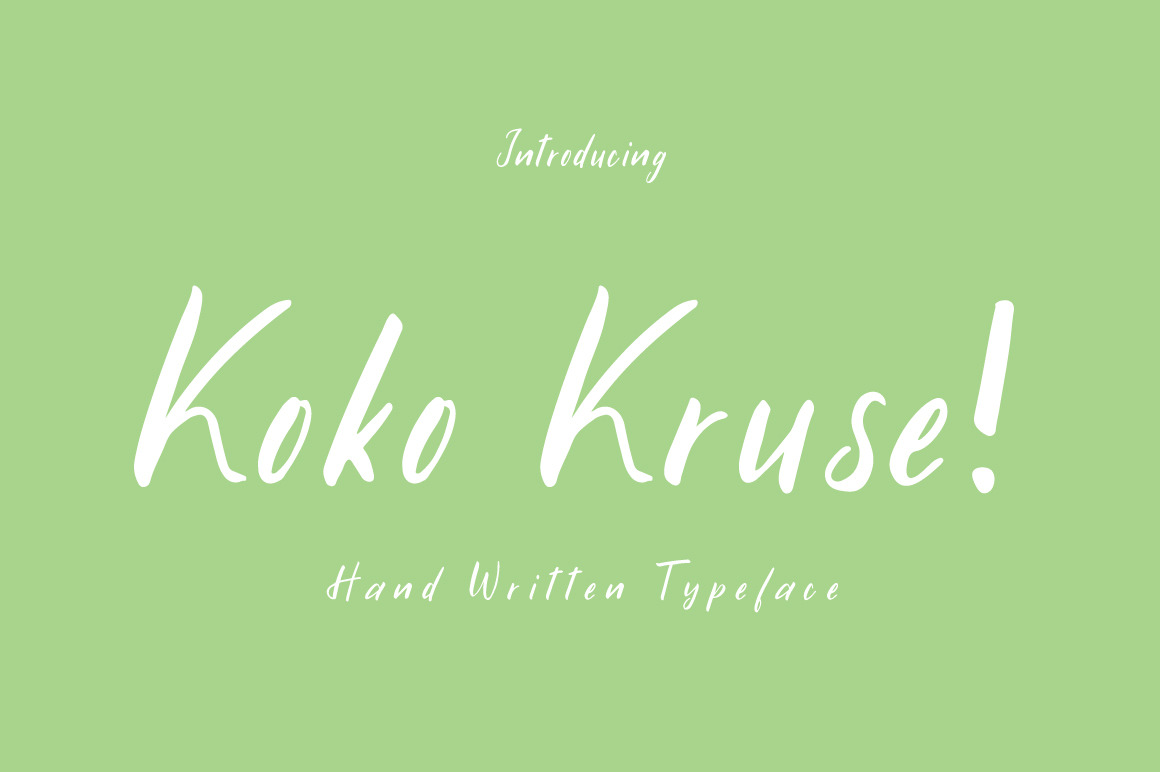
Koko Kruse | Hand Written Font
Koko Kruse
it's amazing handwritten lettering script font.
This font are perfect for wedding invitation or your blog. Also with their help, you can create a logo or beautiful frame for your home. Or just use for your small business, book covers, stationery and more. You can make compositions from font, it's easy and simple.